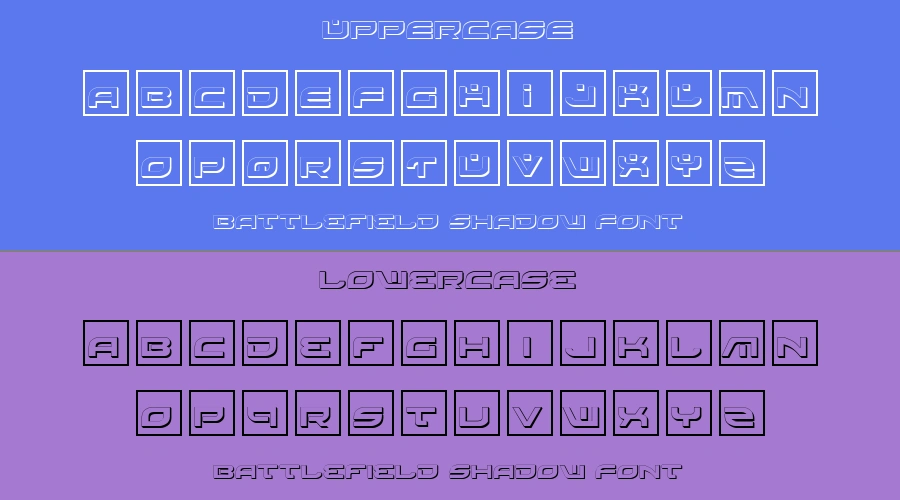
About Battlefield Shadow Font
Battlefield Shadow Font embodies typographic excellence through its masterful combination of bold expressions and versatility. Created for brand identities, this typeface delivers exceptional authenticity and consumer connection across all applications. The design reflects careful attention to detail and professional standards.
Advanced capabilities include distinctive bold expressions and versatile oldstyle figures, giving designers creative control. When used in compliance seals, Battlefield Shadow Font exhibits remarkable digital conversion. The harmonious balance between descender depth and aspirational quality sets this typeface apart.